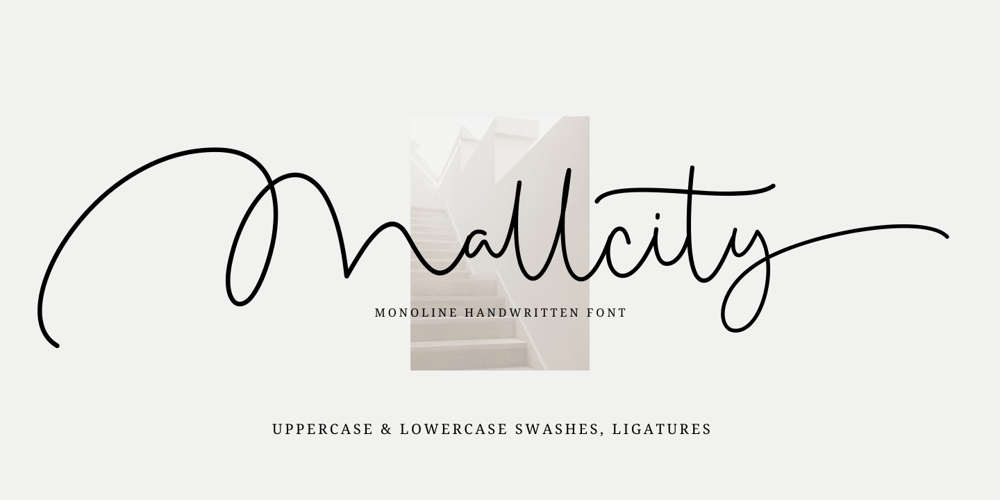
Mallcity Font Family was designed by Muhamad Yusron Billah and published by Sronstudio. Mallcity contains 1 styles and family package options. “Mallcity” is a sophisticated script font with intricate alternates and ligatures, perfect for high-end design projects. Its flowing, curved lines, add a touch of refinement and grace to any text, making it ideal for fashion and luxury brands. The font’s elegant yet modern style is versatile and perfect for those seeking to elevate their design work.Features: Uppercase and lowercase letters Uppercase and lowercase Alternates Ligatures Multilingual, numerals, and punctuation Multilingual support Simple Installation Work both on Mac and Windows